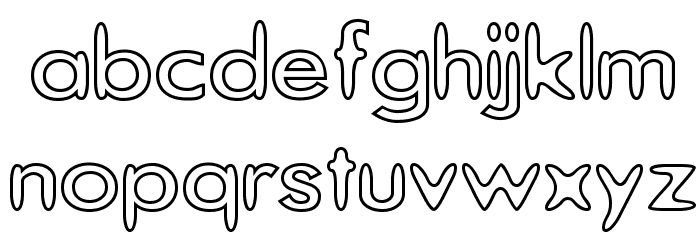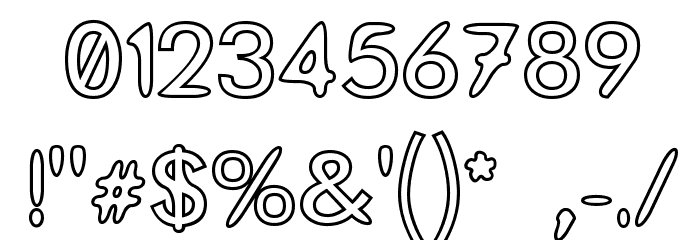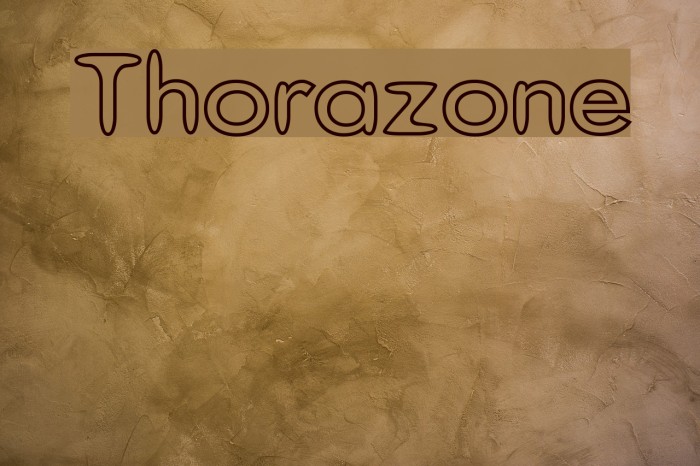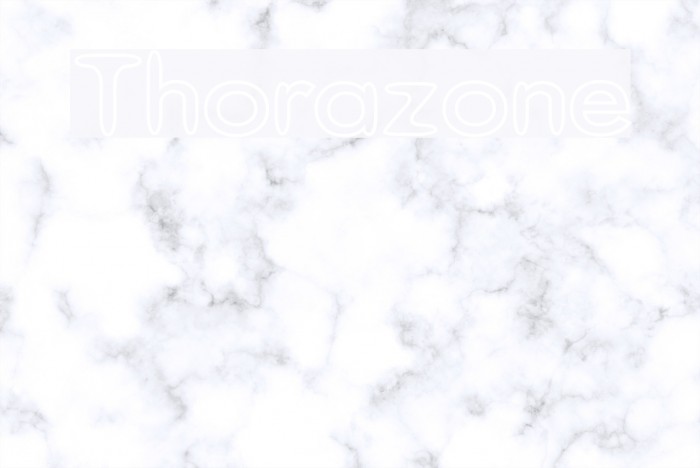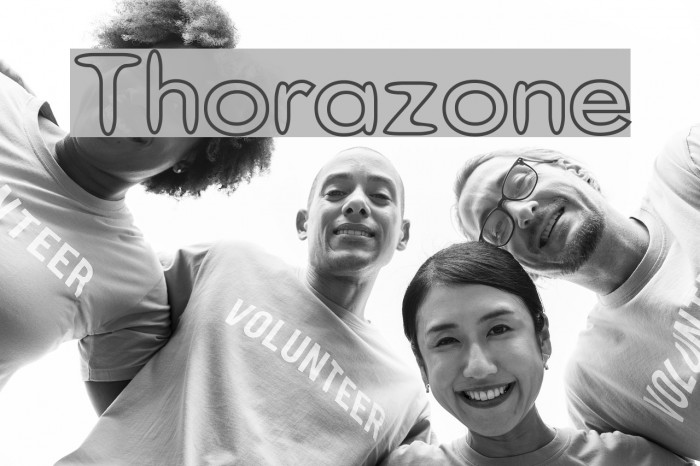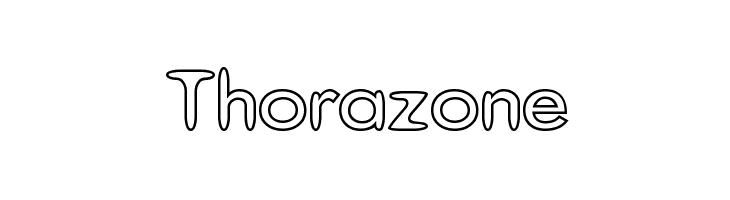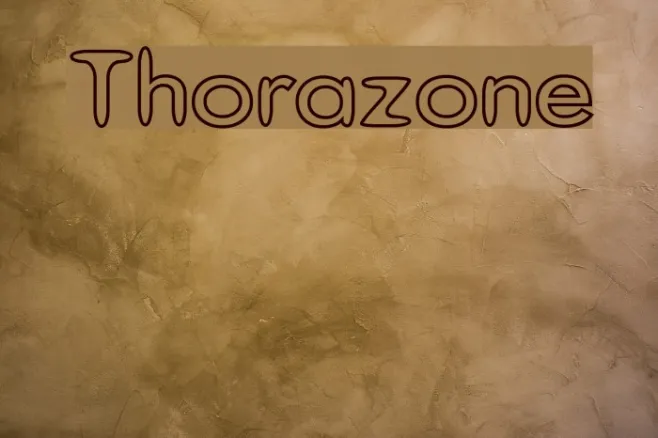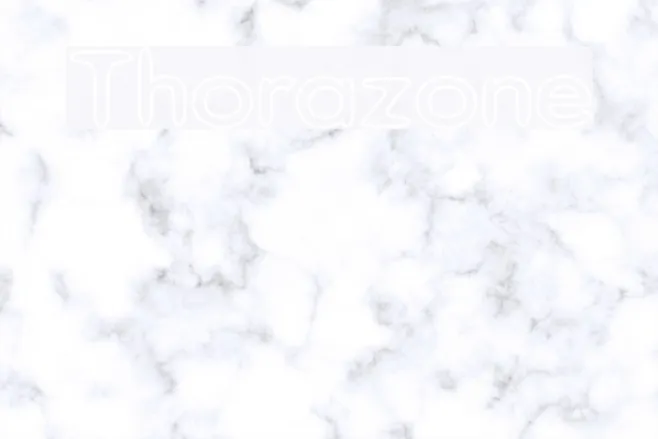
Thorazone Font
This font features a playful and bold outline style, characterized by its hollow, bubble-like appearance. The letters are rounded and have a consistent thickness throughout, giving it a uniform and approachable look. The uppercase and lowercase letters maintain a cohesive design, with smooth curves and a slightly whimsical touch. The numbers and special characters follow the same stylistic approach, ensuring a harmonious overall appearance. This font's unique outline design makes it stand out, offering a fun and creative vibe suitable for various applications.
A playful, bold outline font with a bubble-like appearance.
- Proposed Projects: Ideal for children's book covers, playful branding, party invitations, and creative posters.
- Overall Style: Playful, Creative